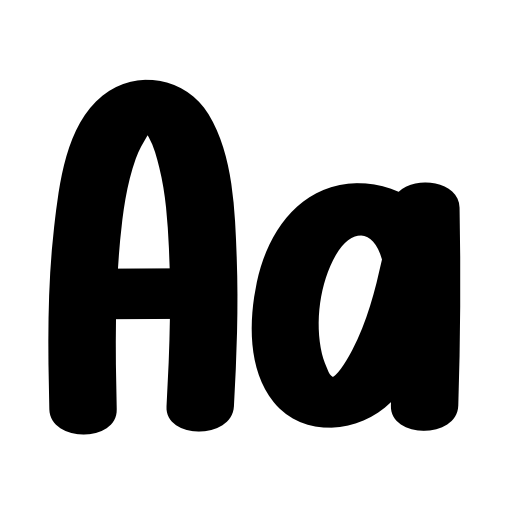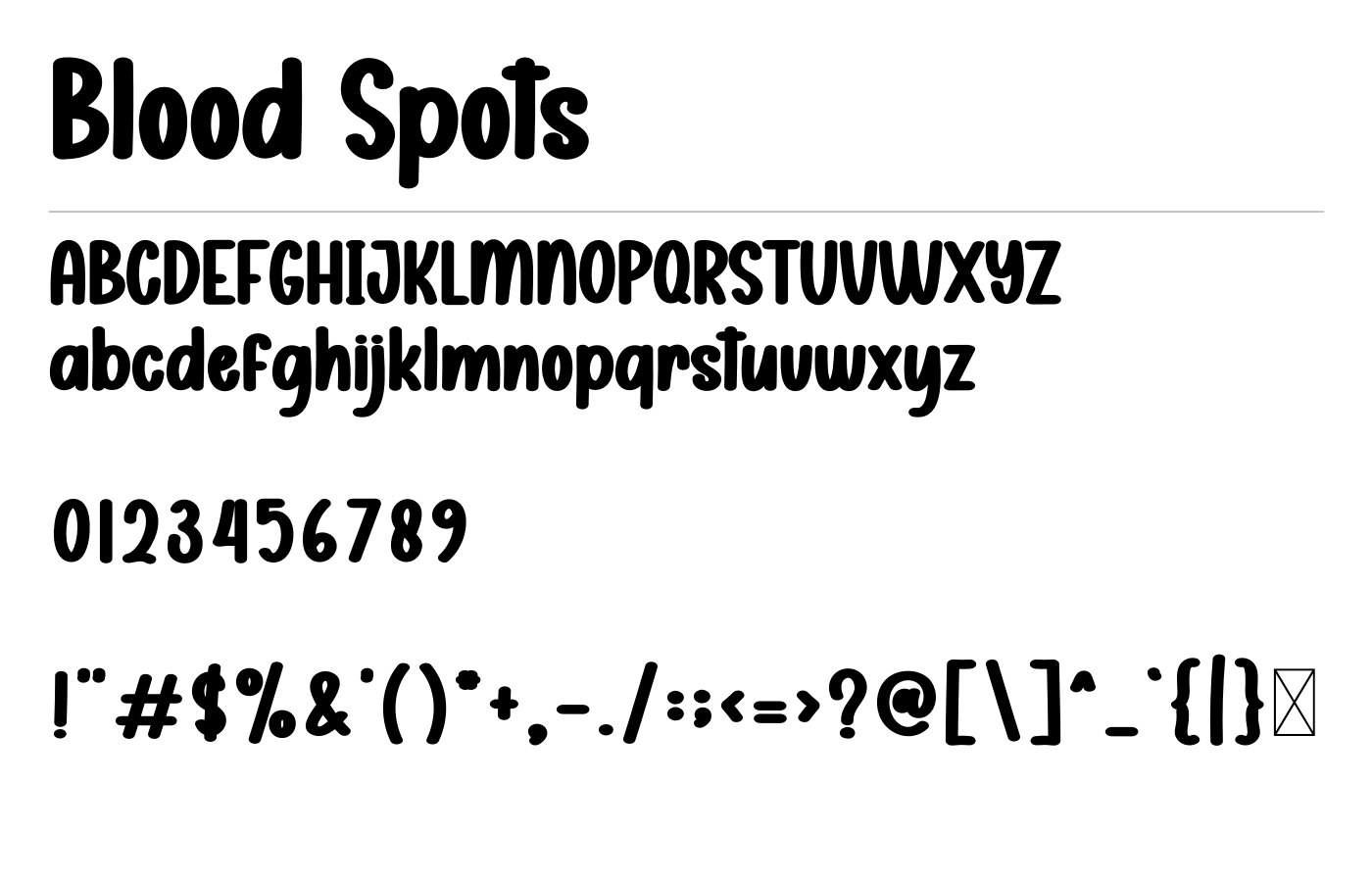
Blood Spots is a bold, playful sans serif font with rounded, organic shapes that give it a friendly and approachable feel. Its lively letterforms and casual style make it ideal for fun, informal designs such as children’s books, posters, or quirky branding where a warm and energetic tone is desired. This font stands out in headlines and display use, bringing charm and personality without compromising legibility.
Blood Spots Font
About Blood Spots Font
| Font family | Blood Spots Font |